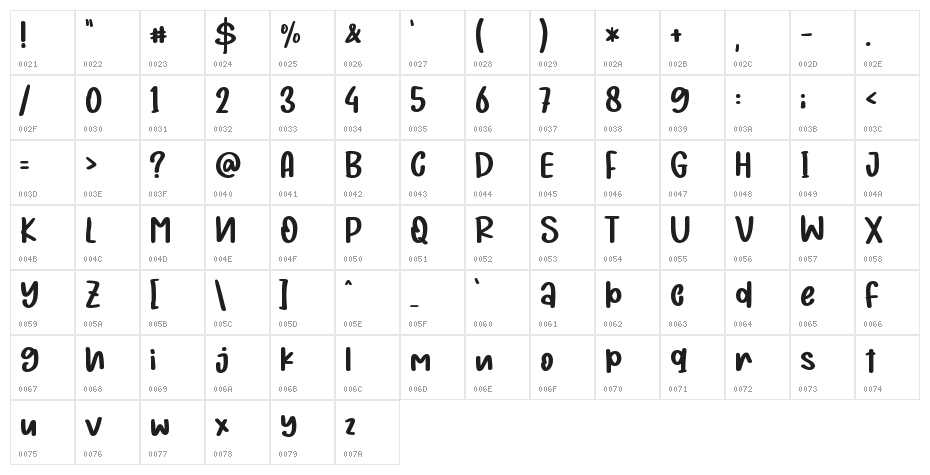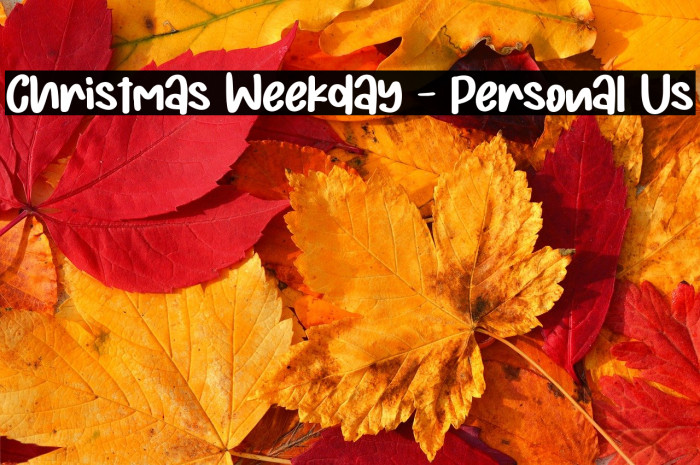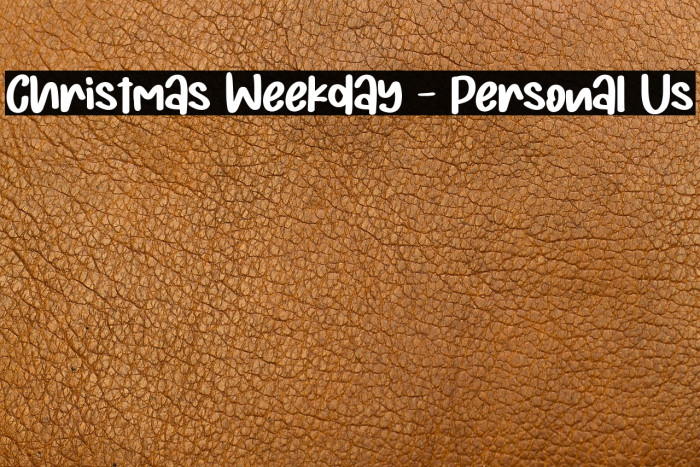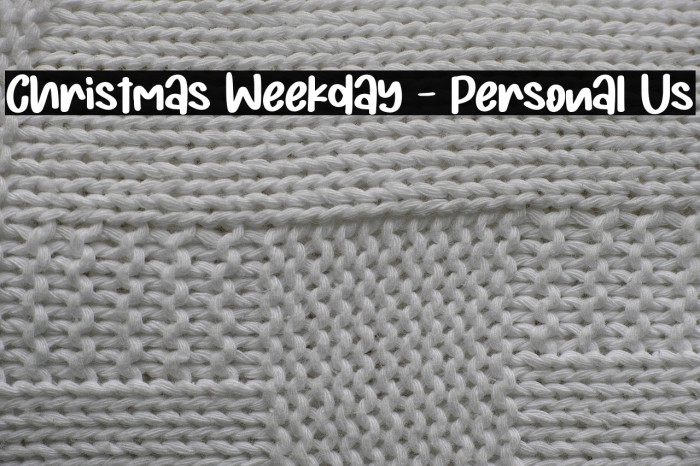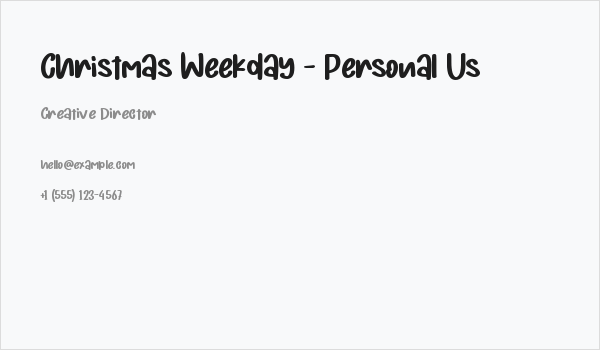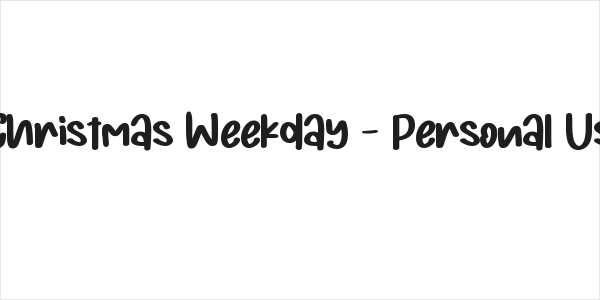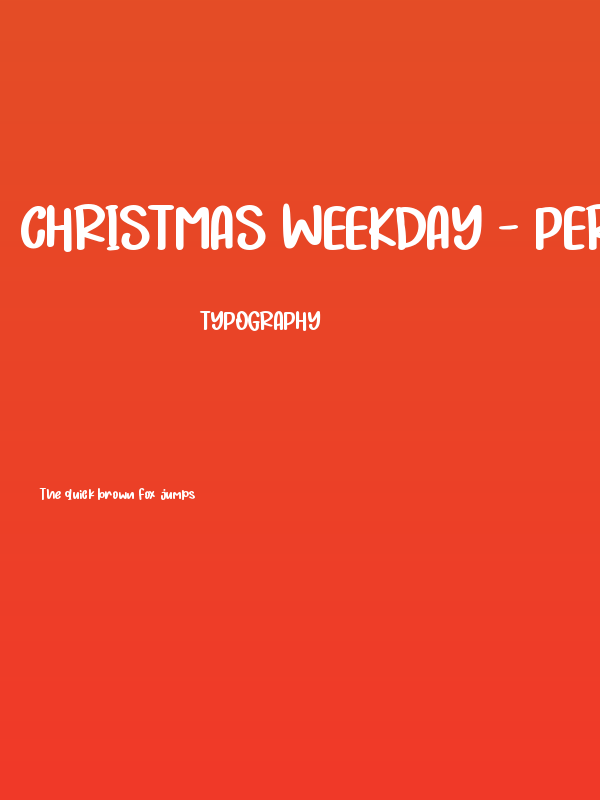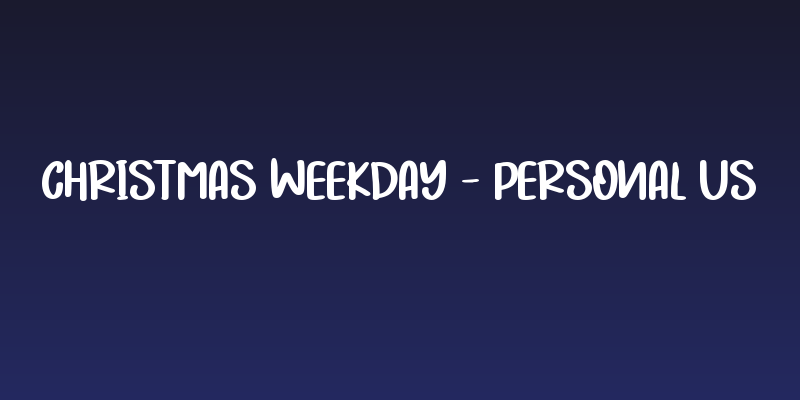
Christmas Weekday - Personal Us Font
Christmas Weekday - Personal Us Description
A playful, handwritten font with bold, rounded characters and a casual style.
| Proposed Projects | Greeting cards, children's books, casual branding. |